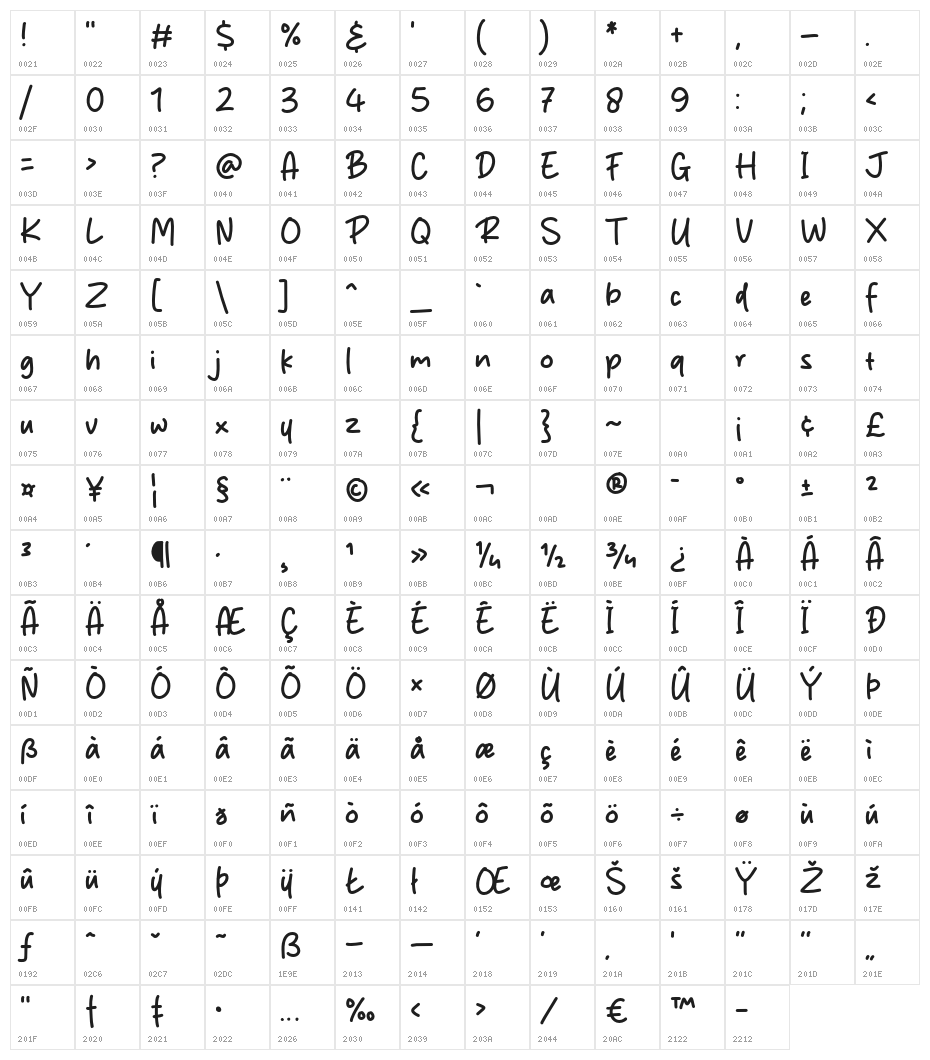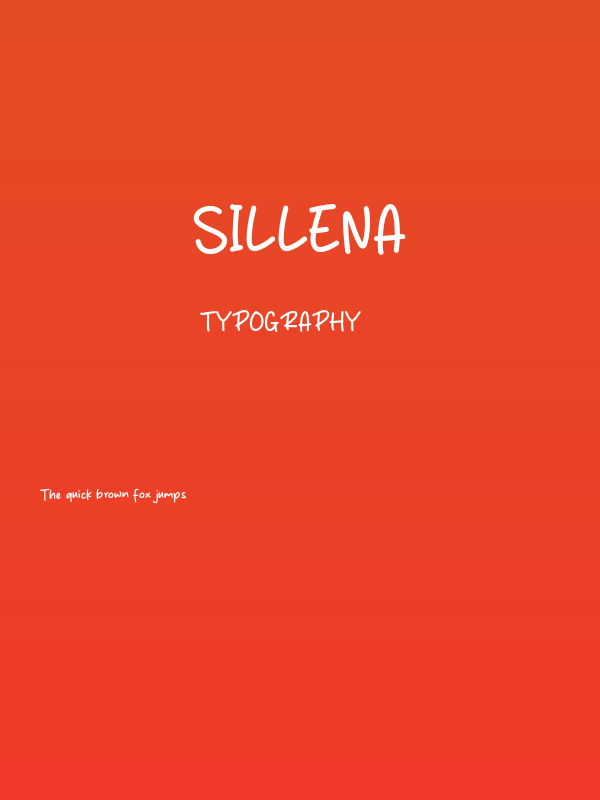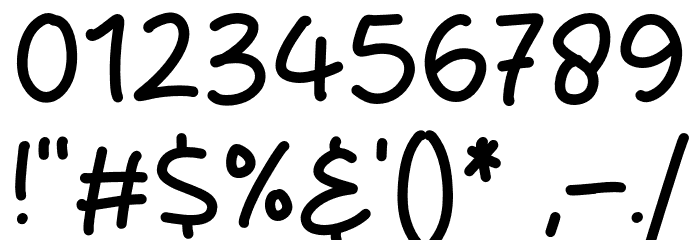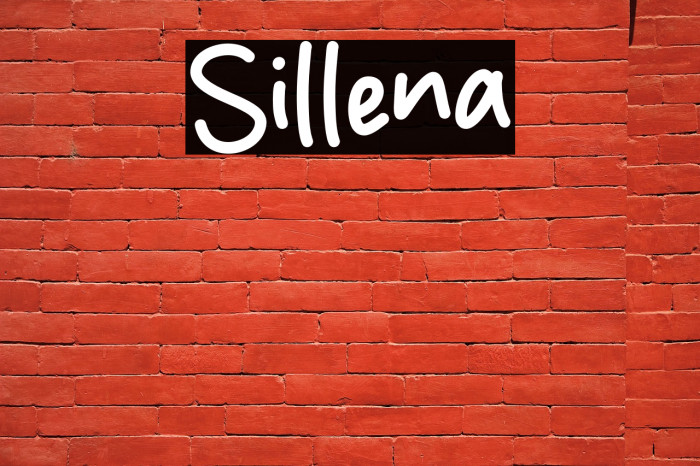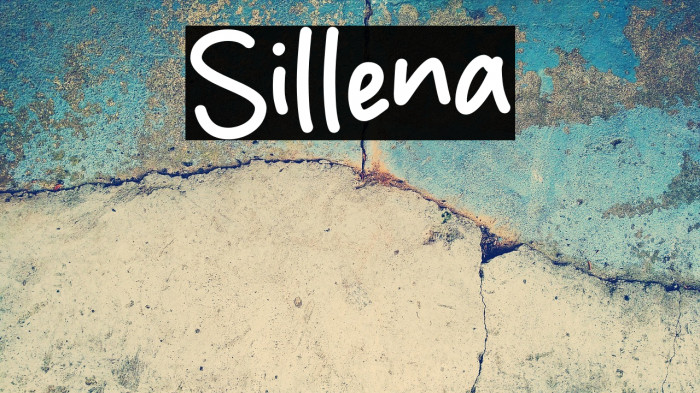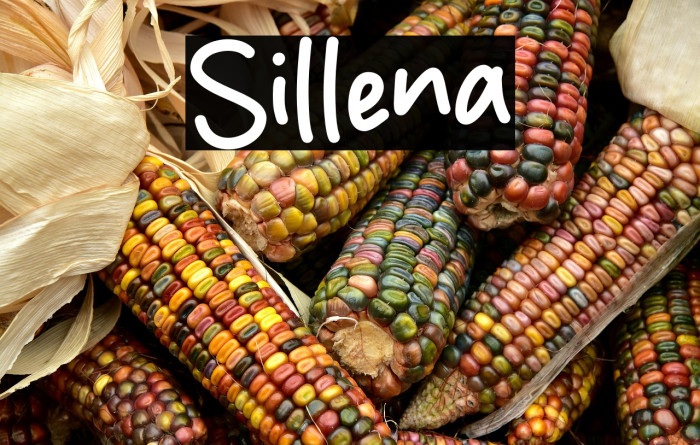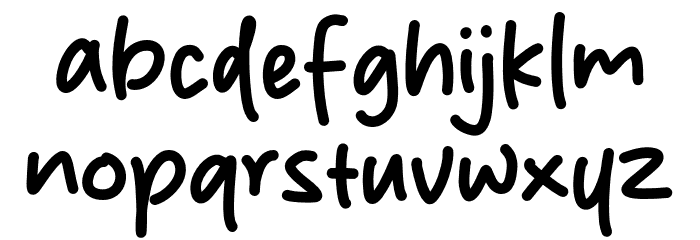
Sillena Font
Sillena Description
This font exudes a playful and casual handwritten style, characterized by its smooth, rounded edges and consistent stroke width. The letters are slightly slanted, giving a dynamic and informal appearance. The uppercase and lowercase letters maintain a harmonious balance, with a slight variation in size that adds to its charm. Numbers and special characters are crafted with the same playful touch, ensuring a cohesive look across all characters. The font's overall appearance is friendly and approachable, making it suitable for projects that require a personal touch.
| Use Case | Logos, Headlines, Informal Text |
| Proposed Projects | Ideal for greeting cards, children's books, casual branding, and social media graphics. |